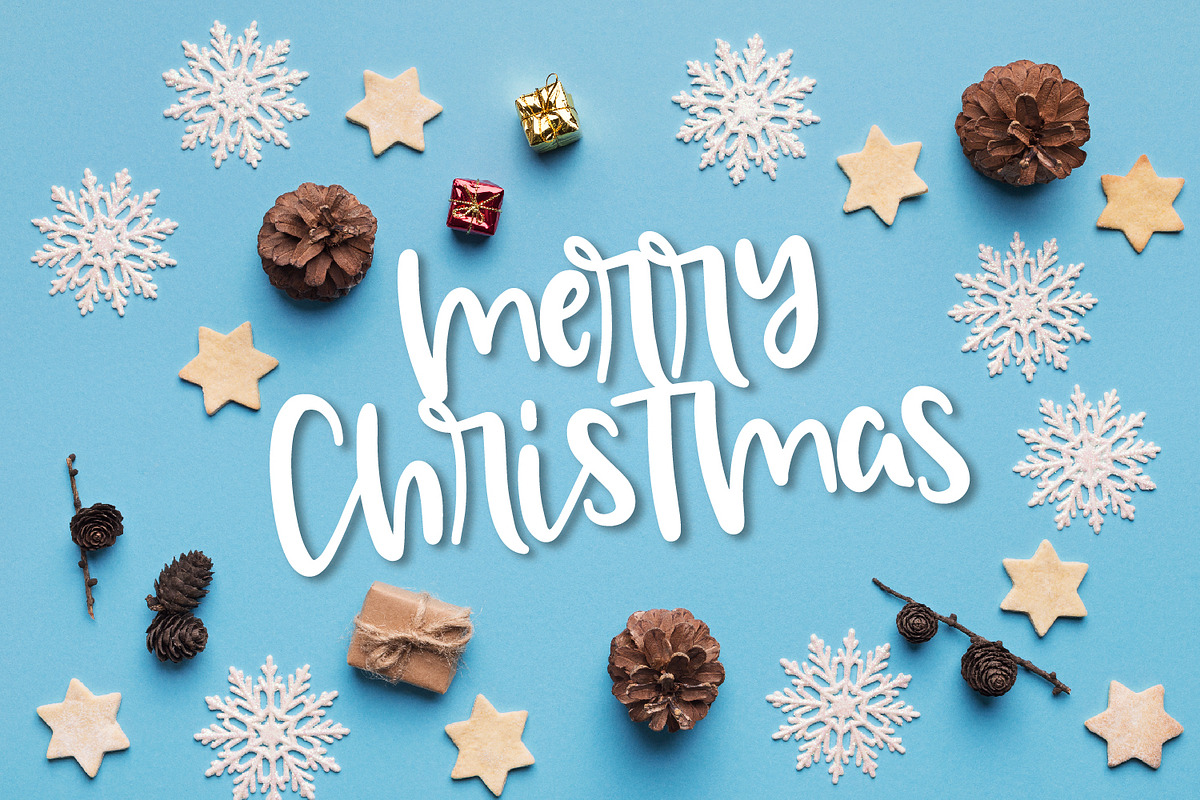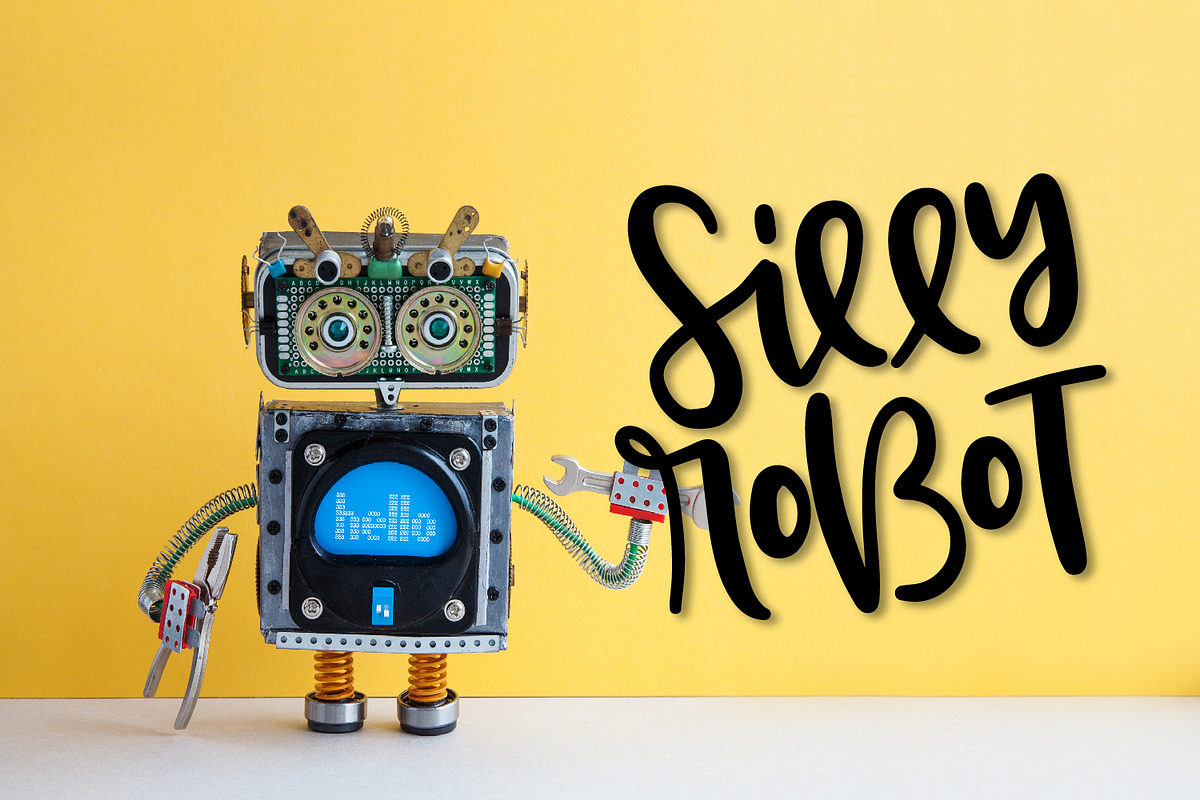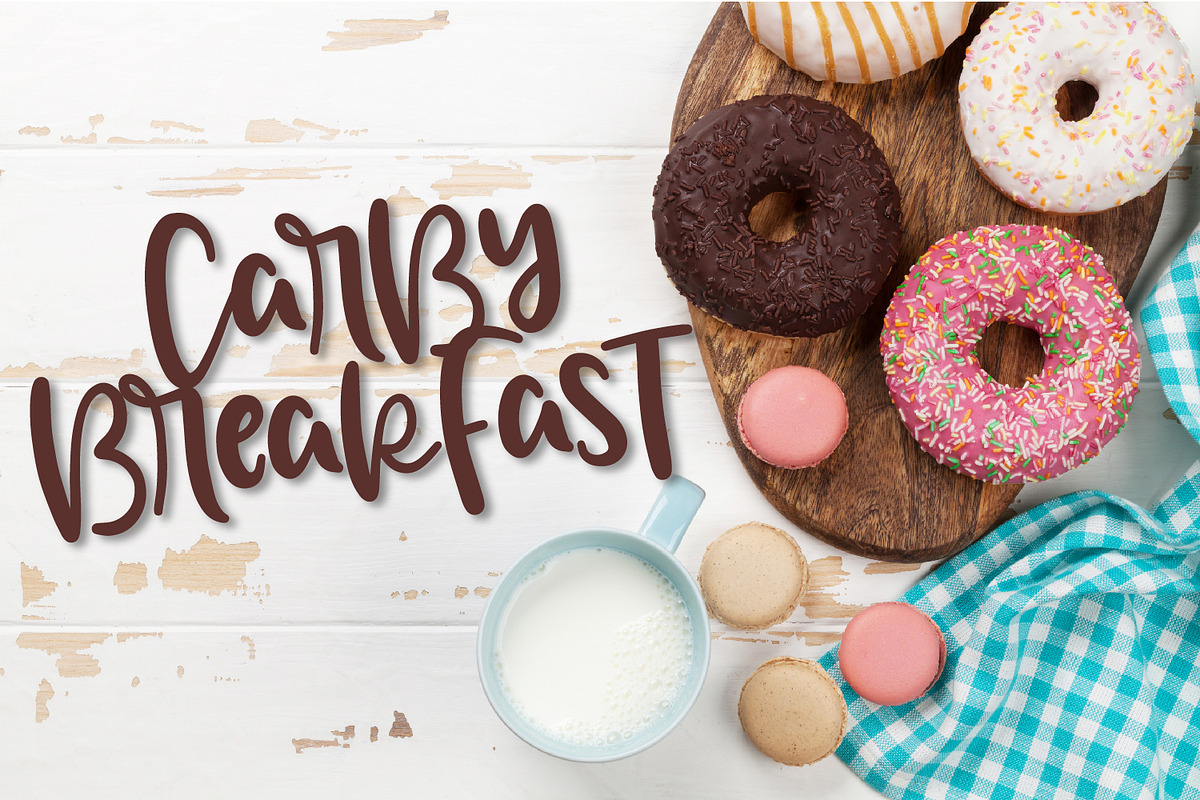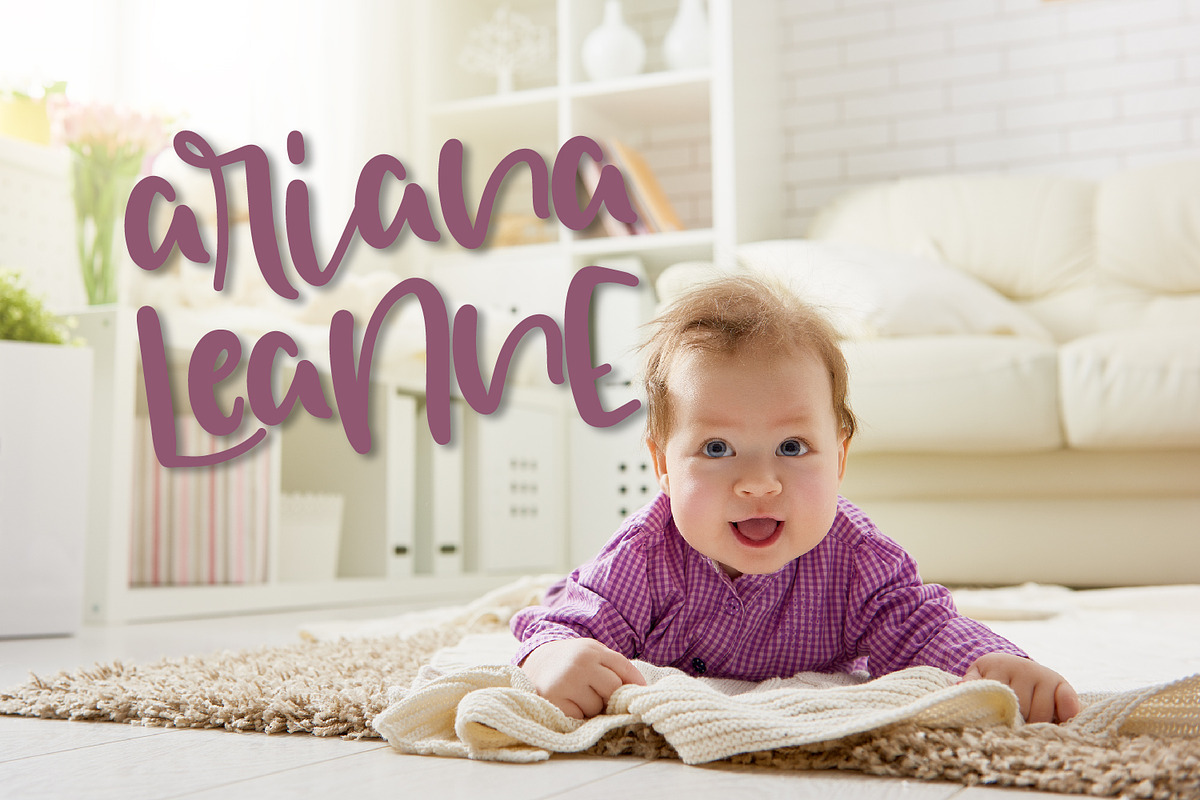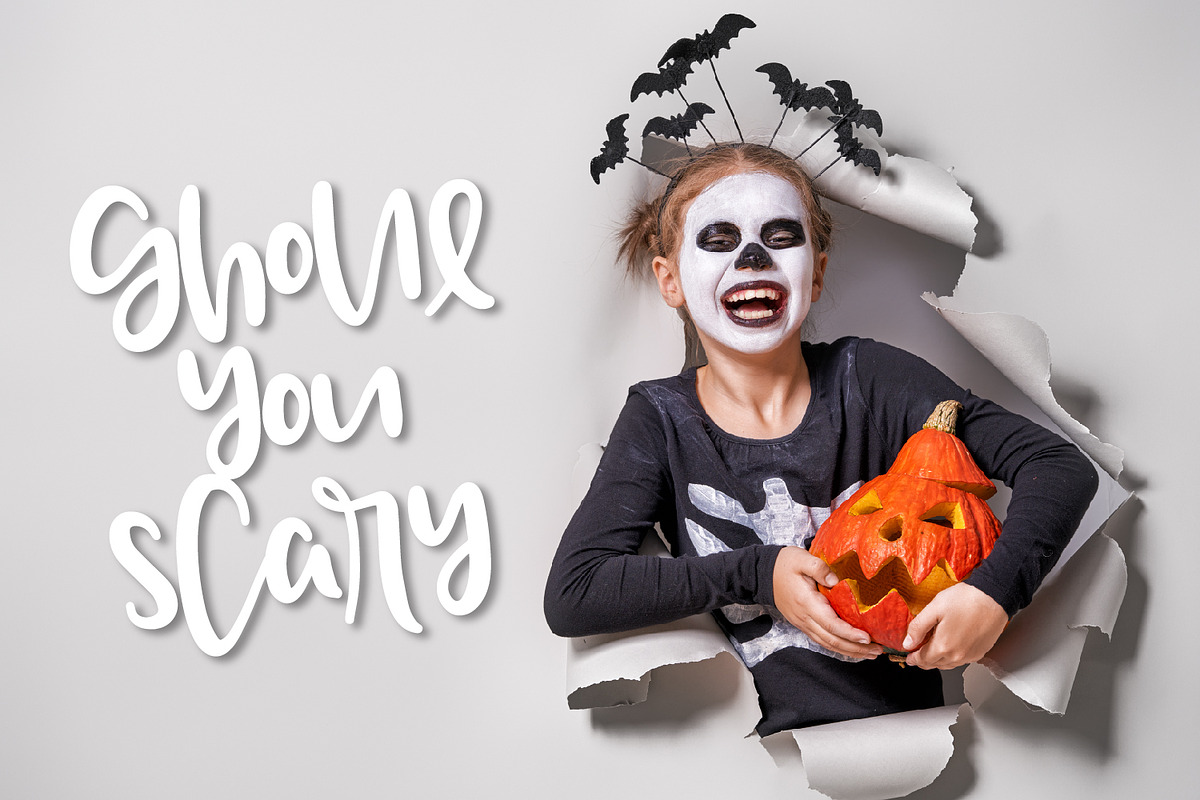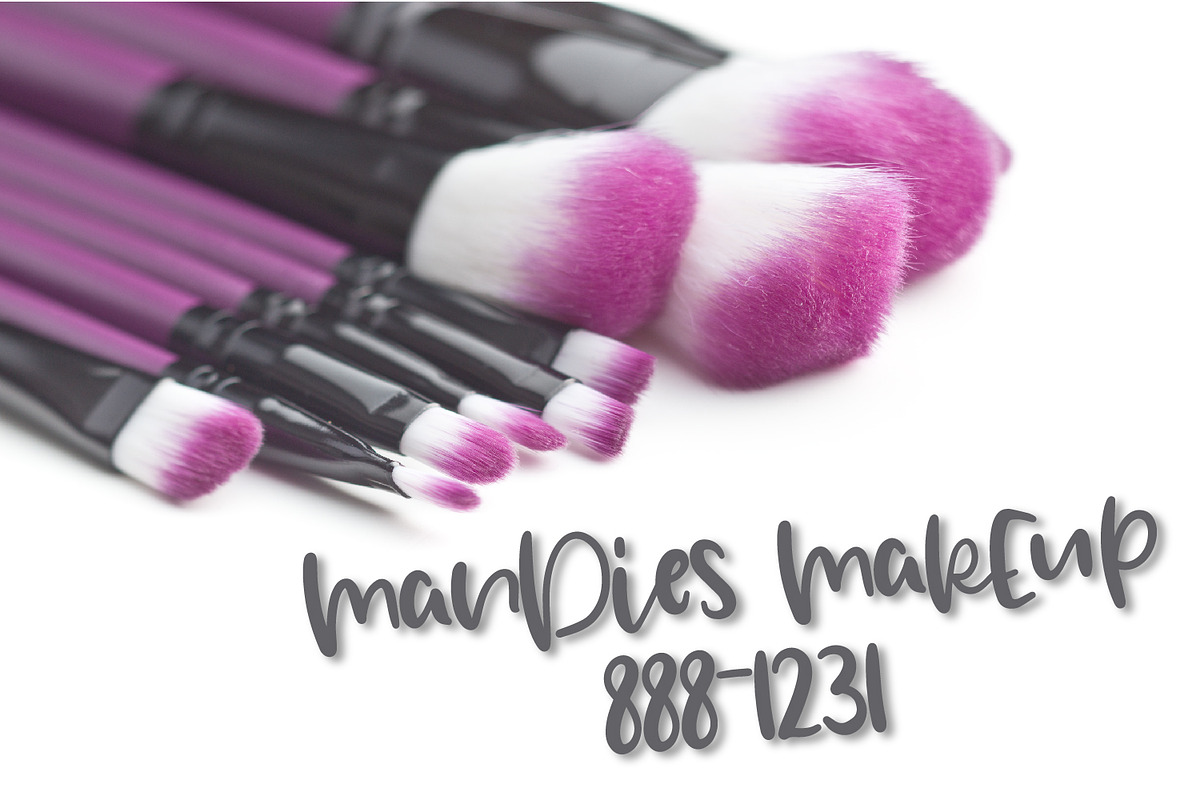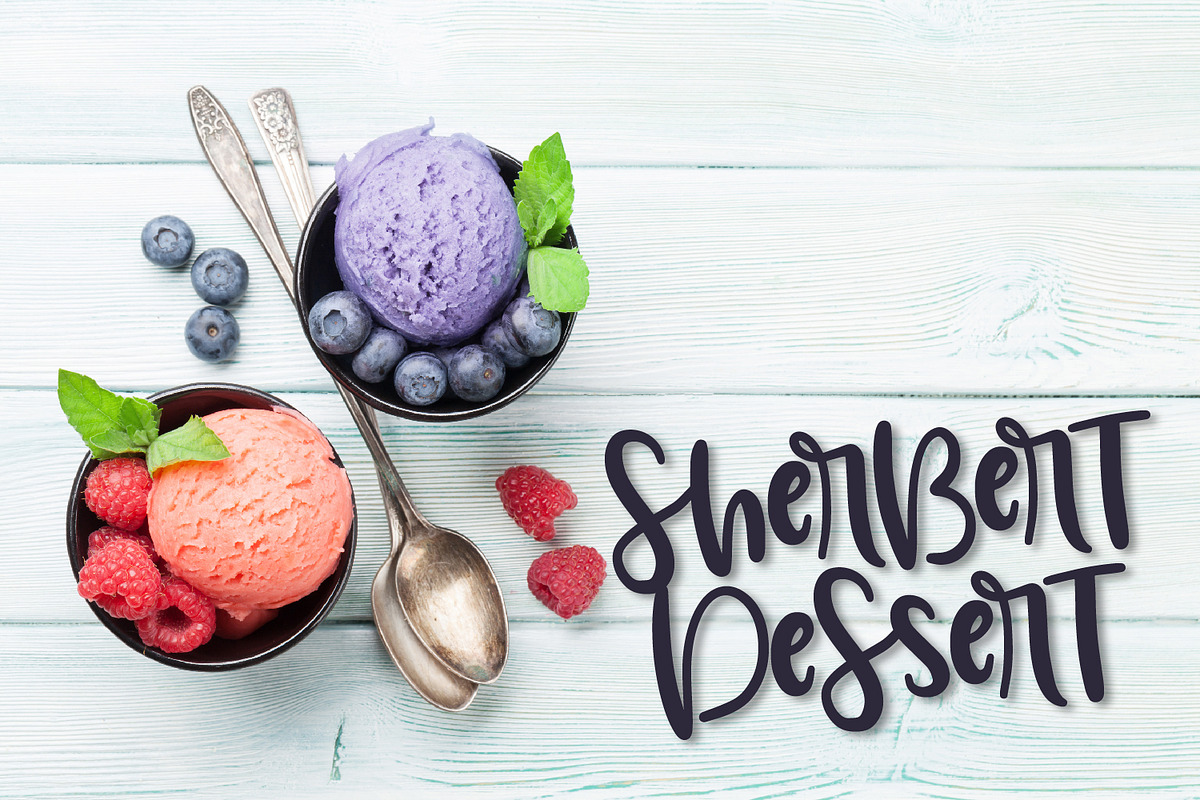
Ariana Leanne - A Hand Lettered Font
Why Ariana Leanne - A Hand Lettered Font is worth a look
Ariana Leanne - A Hand Lettered Font by CraftyLittleNodes fits naturally into Branding, posters, packaging, typography.